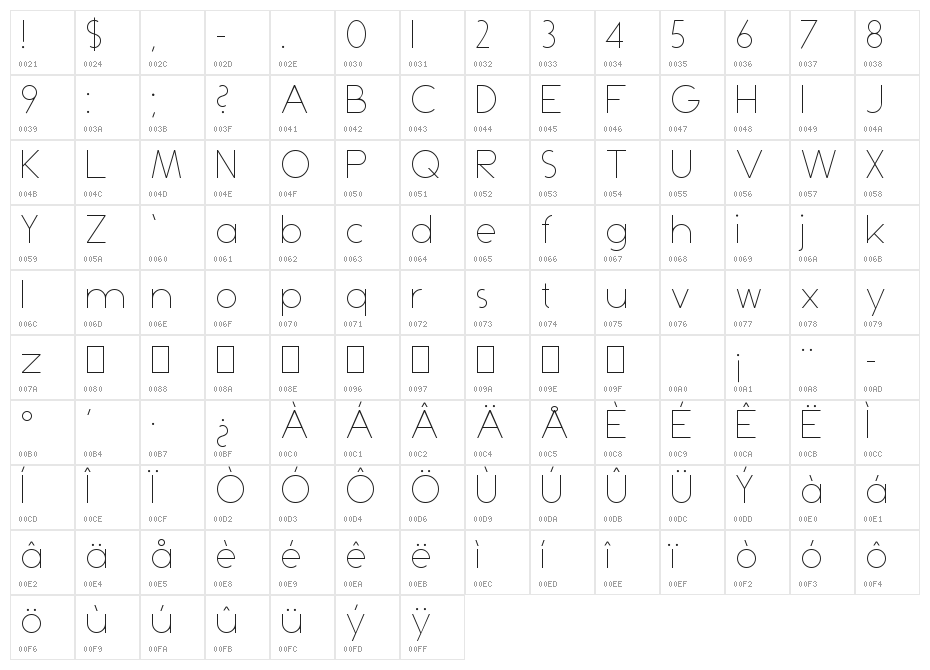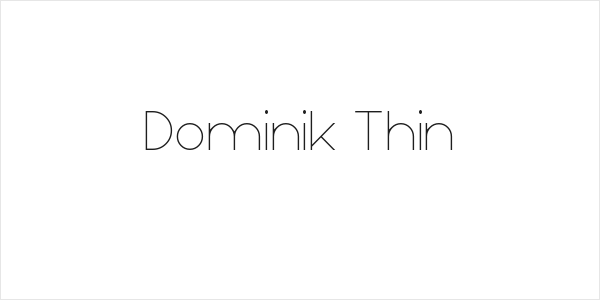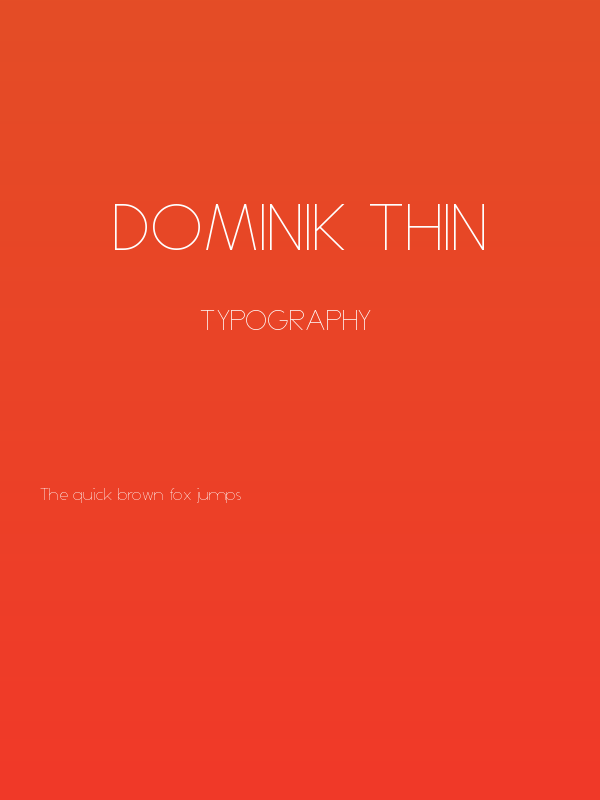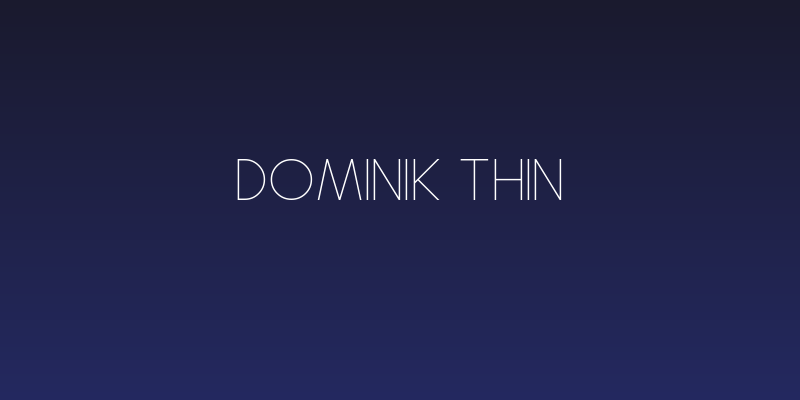
Dominik Thin Font
Dominik Thin Description
This font features a sleek and modern design with thin, clean lines that give it an elegant and minimalist appearance. The characters are evenly spaced, contributing to a balanced and harmonious look. The uppercase and lowercase letters maintain a consistent style, with a geometric influence that enhances its contemporary feel. The numerals are clear and legible, making them suitable for various applications. Special characters are included, maintaining the same thin and precise line work. This font is ideal for projects that require a sophisticated and understated aesthetic.
Proposed ProjectsIdeal for branding, editorial design, modern websites, and minimalist posters.